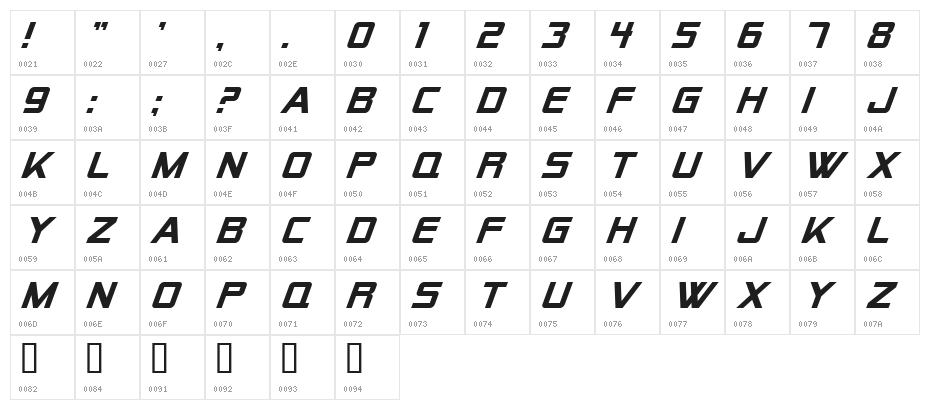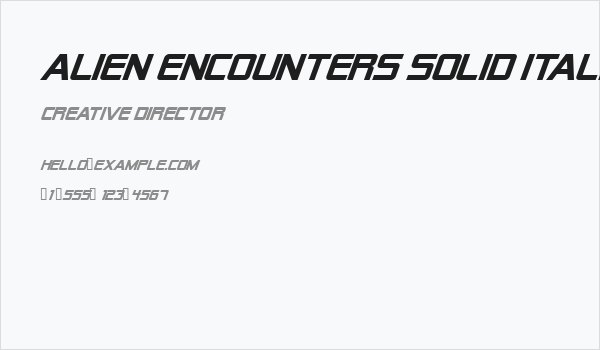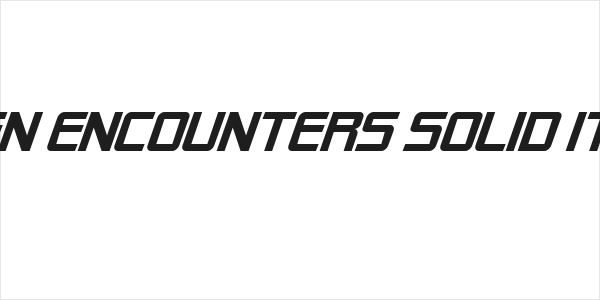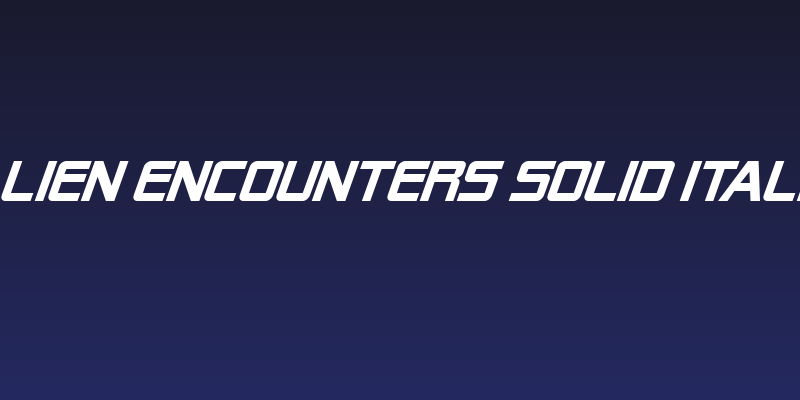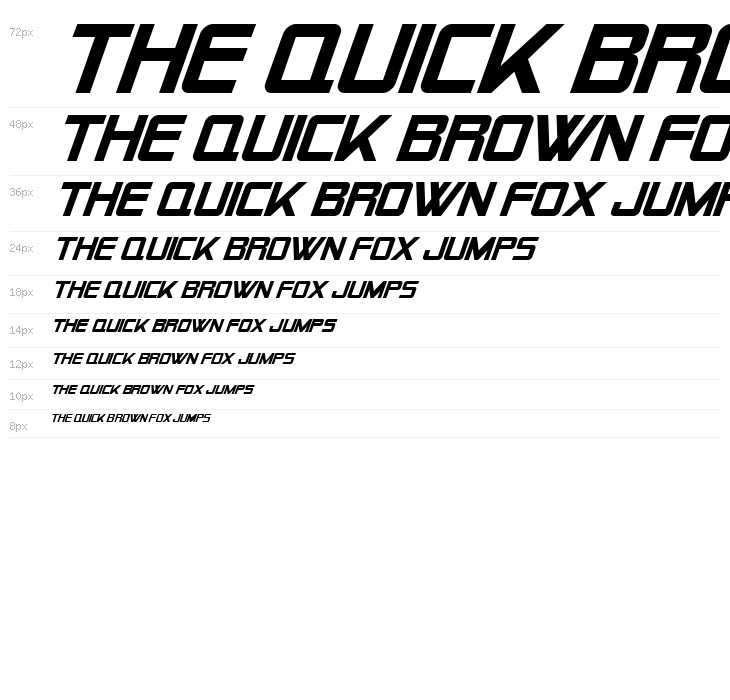
Alien Encounters Solid Italic Font
Alien Encounters Solid Italic Description
This font features a futuristic and dynamic design, characterized by its sharp angles and italicized form. The letters are bold and slightly condensed, giving a sense of speed and modernity. The uppercase and lowercase letters maintain a consistent style, with a strong geometric influence. Numbers and special characters are designed to match the angular and sleek aesthetic, making them suitable for high-tech or sci-fi themed projects. The overall appearance is clean and impactful, ideal for creating a strong visual presence.
| Proposed Projects | Ideal for sci-fi movie posters, video game titles, technology branding, and futuristic event flyers. |